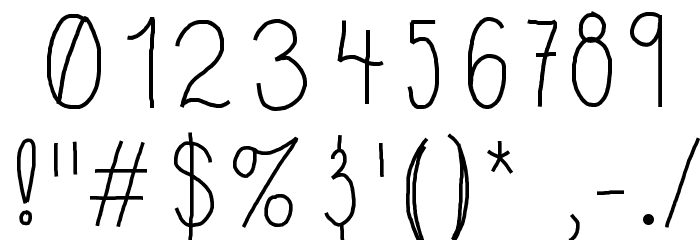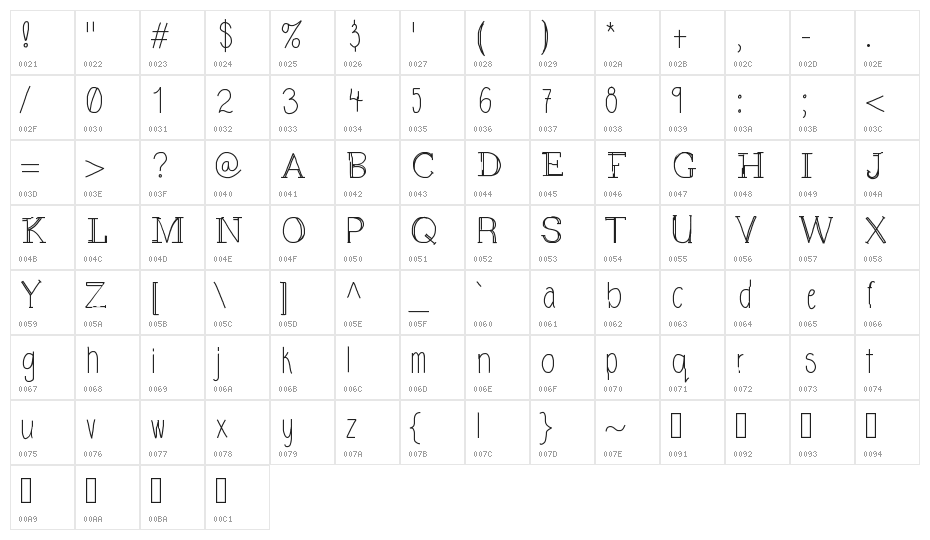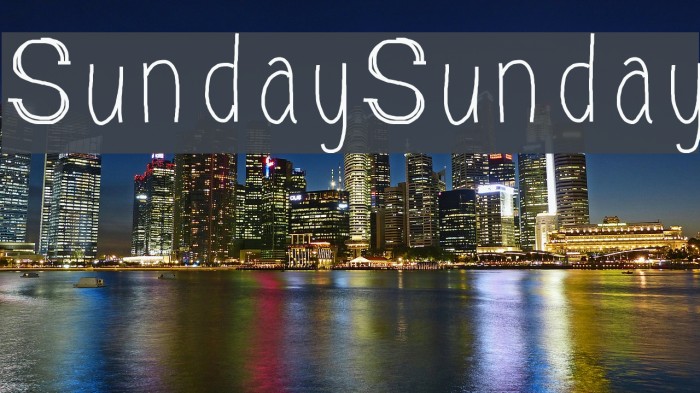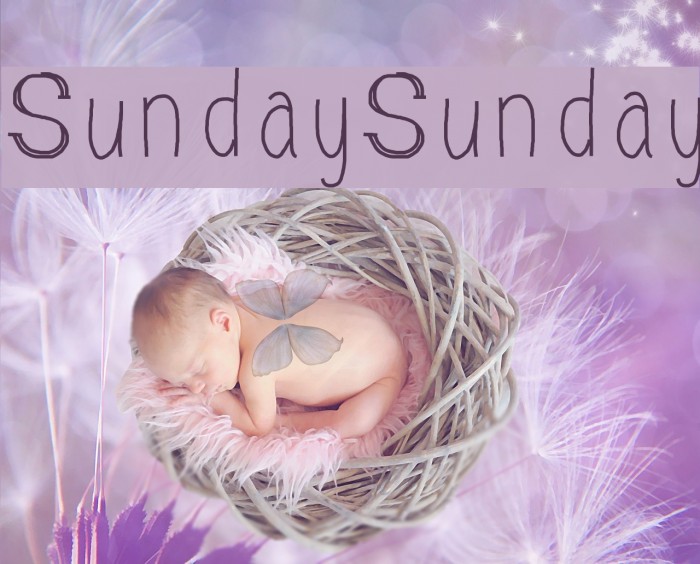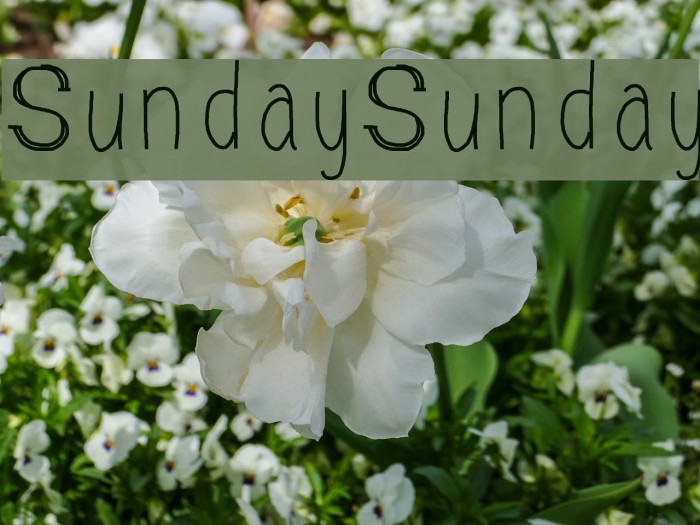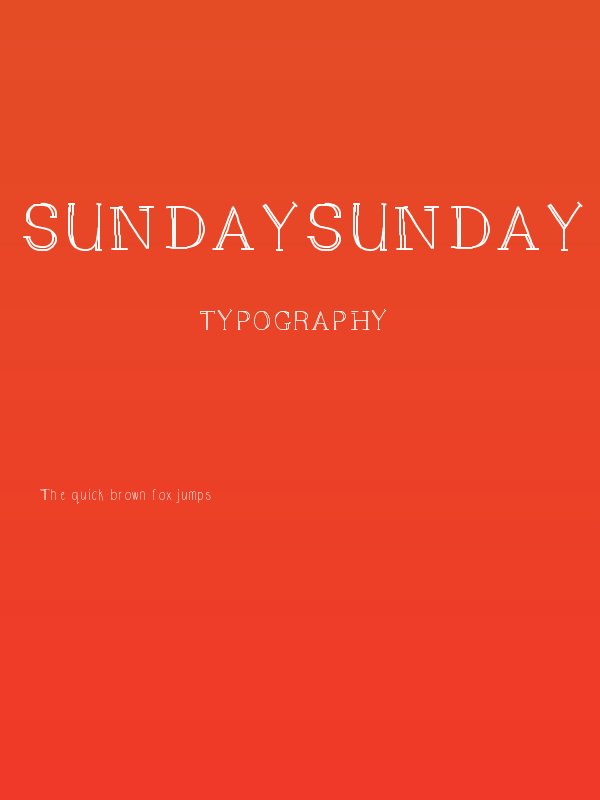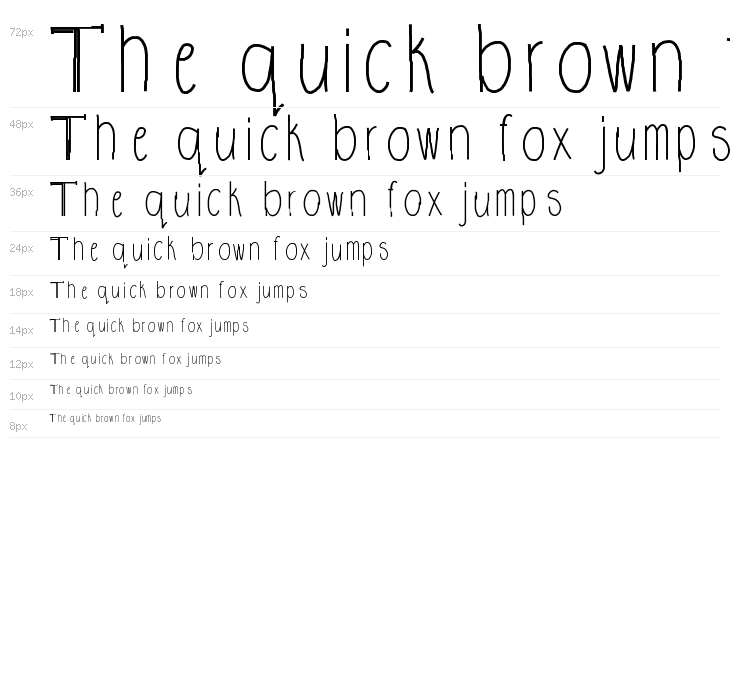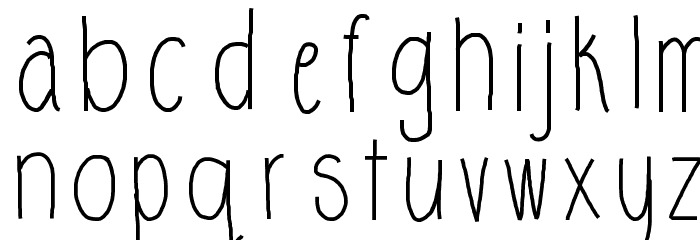
SundaySunday Font
SundaySunday Description
This font features a playful and whimsical style with a hand-drawn appearance. The uppercase letters are slightly irregular, adding a casual and friendly feel. The lowercase letters maintain a consistent height, contributing to readability while preserving the font's quirky charm. Numbers and special characters follow the same playful design, making them suitable for creative projects. The strokes are thin, with a slight variation in thickness that adds to the hand-crafted look. This font is ideal for projects that require a personal touch, such as invitations, greeting cards, or children's book covers.
| Overall Style | Whimsical |
| Use Case | Headlines, Creative projects, Invitations |
| Proposed Projects | Ideal for invitations, greeting cards, children's books, and creative branding. |